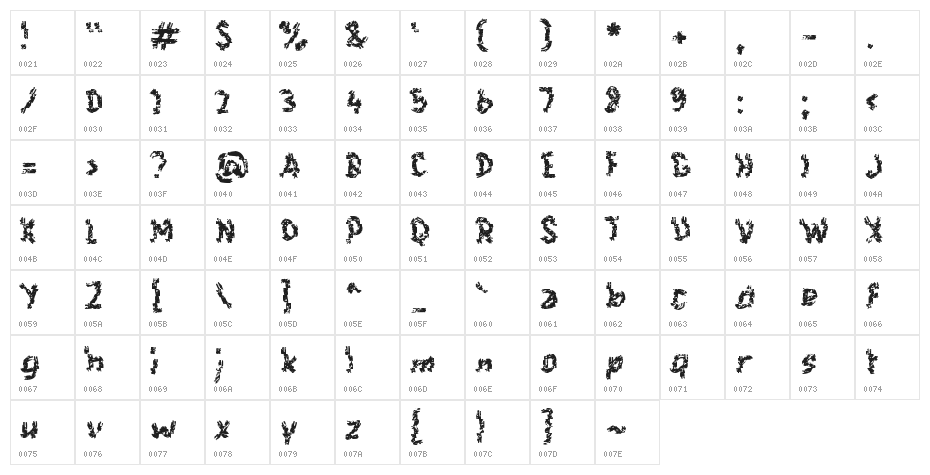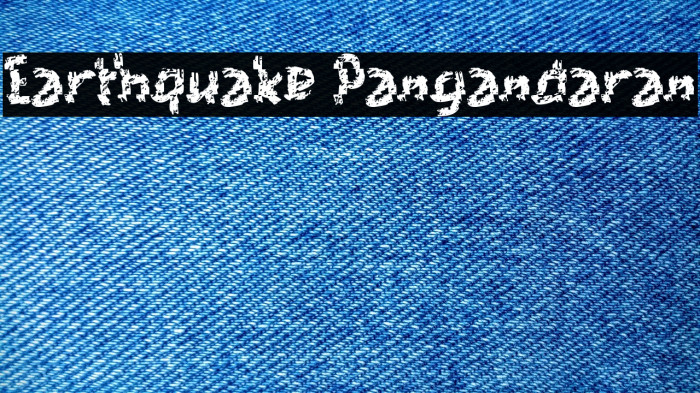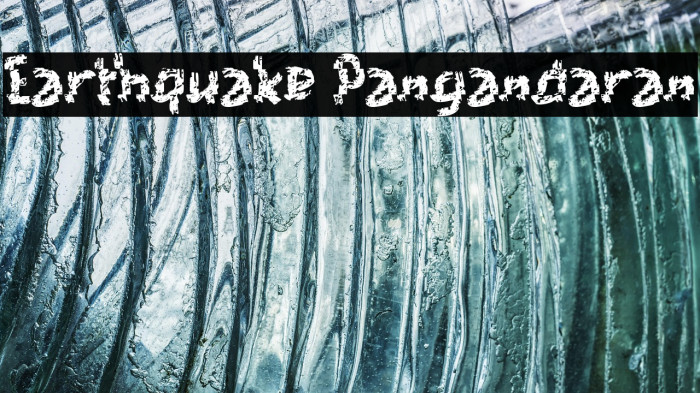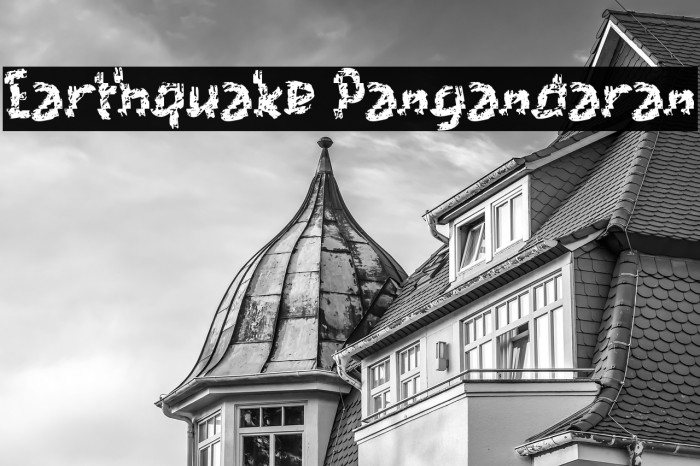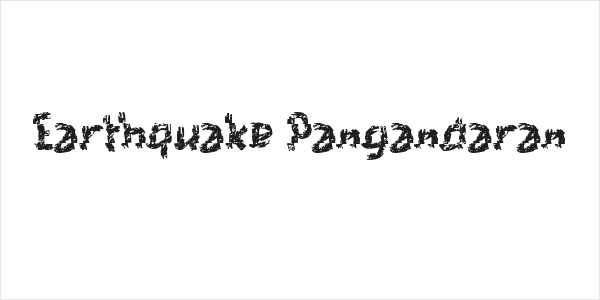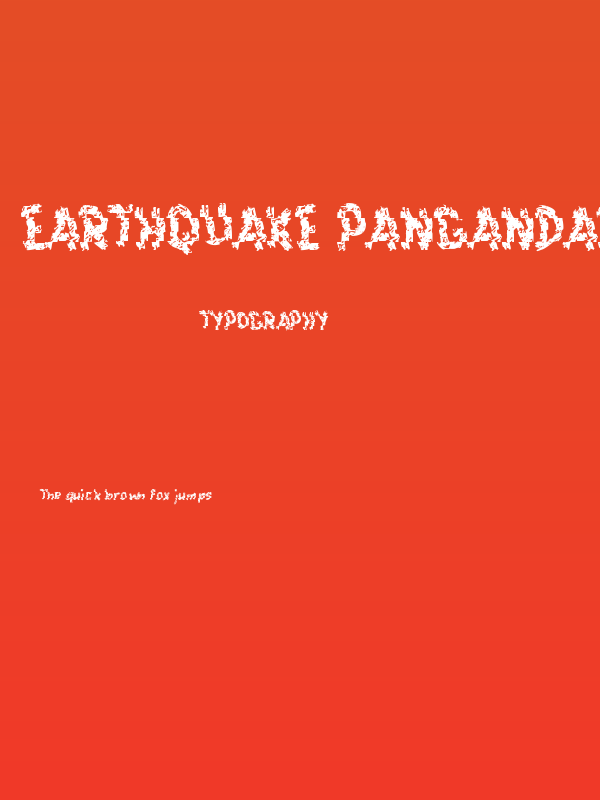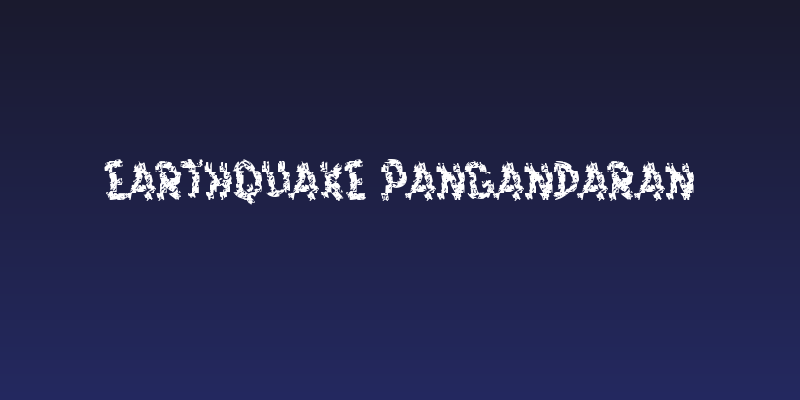
Earthquake Pangandaran Font
Earthquake Pangandaran Description
This font exhibits a highly distressed and chaotic appearance, reminiscent of cracked surfaces or shattered glass. Each character is uniquely fragmented, creating a sense of movement and energy. The rough edges and irregular shapes contribute to its dynamic and unpredictable style. Despite its chaotic nature, the font maintains legibility, making it suitable for impactful designs. The uppercase and lowercase letters, along with numbers and special characters, all share this distinctive, fractured aesthetic, providing a cohesive yet edgy look.
| Proposed Projects | Ideal for projects requiring a bold, edgy look, such as music album covers, movie posters, or urban-themed designs. |